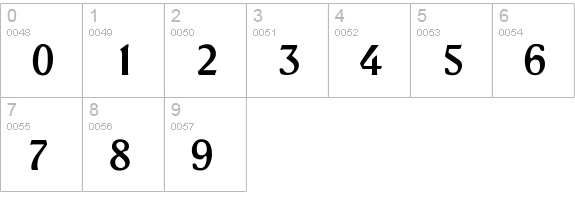
Gotthard font is a modern and stylish typeface that exudes sophistication and elegance. Its sleek lines and balanced proportions make it versatile for various design projects, from branding to editorial work. The font features a unique blend of classic and contemporary elements, making it a perfect choice for both traditional and modern designs. What sets Gotthard font apart is not only its aesthetic appeal but also its accessibility. This high-quality font is available for free download at FontsMarket.com, allowing designers and enthusiasts to easily incorporate it into their projects without any cost. With its clean typography and timeless charm, Gotthard font is sure to elevate any design and leave a lasting impression on viewers.